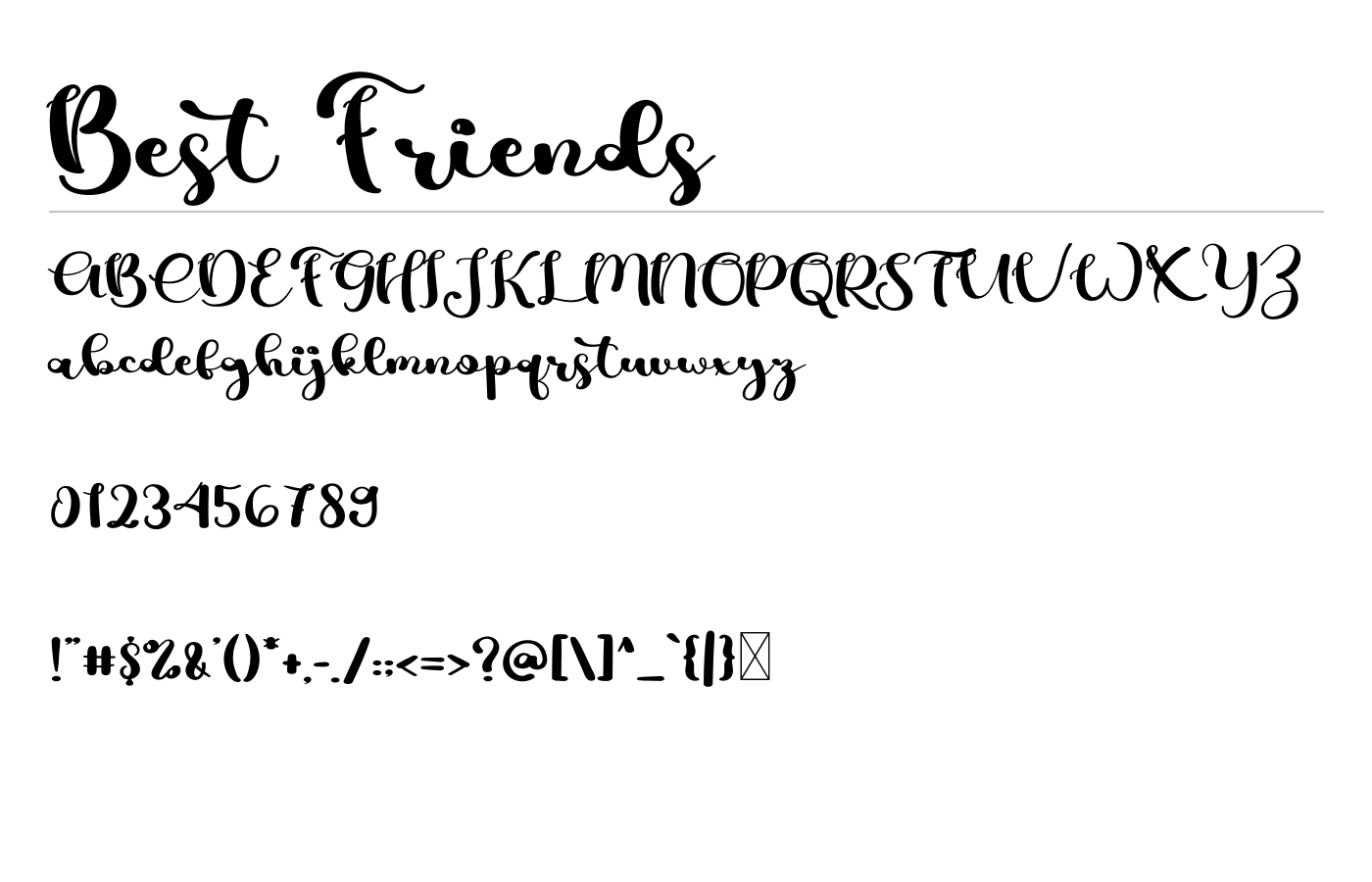
Best Friends Font is a playful and decorative script typeface with a charming, hand-lettered feel. It features smooth, flowing strokes with medium contrast and unique swashes that add a friendly and expressive personality, perfect for invitations, greeting cards, and branding that seeks a warm, casual vibe. This font works well in display use where its lively character can shine and bring a joyful, personal touch to the design.
Best Friends Font
About Best Friends Font